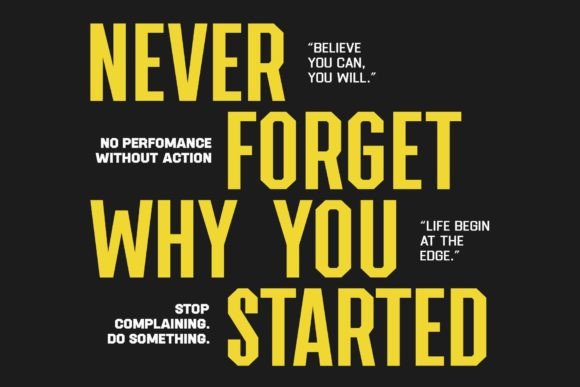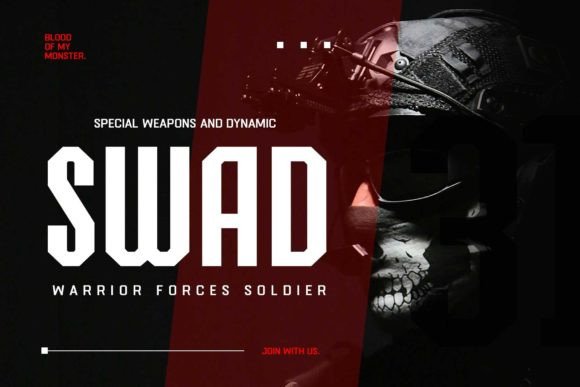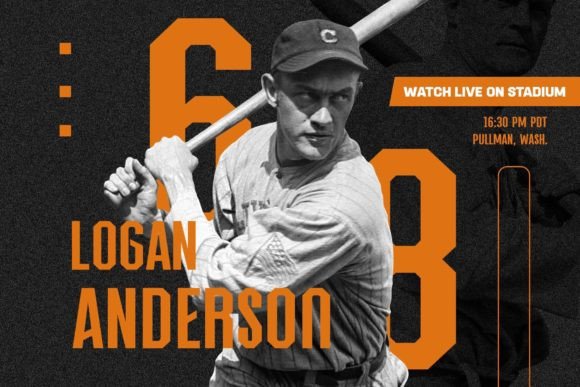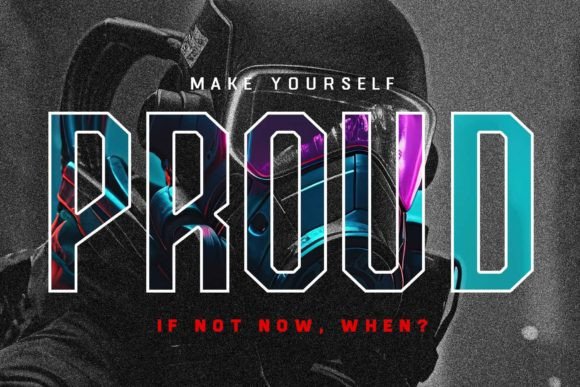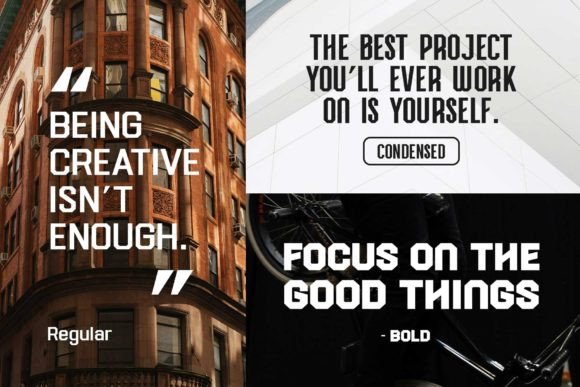
Introducing Brionsen Font: A Bold and Versatile Typeface for Modern Designs
In the world of typography, fonts play a crucial role in conveying the tone and personality of a design. For designers and crafters looking for a strong and energetic font to elevate their projects, Brionsen Font is an excellent choice. This robust block font comes in three distinct styles: regular, bold, and condensed, making it an incredibly versatile typeface for various design applications.
Design Characteristics of Brionsen Font
Brionsen Font is carefully crafted with sharp edges that exude strength and courage, making it perfect for designs that require a bold statement. The font’s design characteristics include:
- Sharp Edges: The font’s sharp edges give it a rugged and powerful look, ideal for sports themes, military designs, and futuristic projects.
- Three Styles: Brionsen Font comes in three styles: regular, bold, and condensed. This range of styles allows designers to use the font for various purposes, from short body text to headlines.
- Stylistic Alternatives: The font is equipped with stylistic alternatives, providing designers with more creative options to experiment with.
- Multilingual Support: Brionsen Font supports multiple languages, making it a great choice for global designs.
Using Brionsen Font Effectively
One of the significant advantages of Brionsen Font is its versatility. Designers can combine the three styles effectively to create visually appealing and well-structured designs. Here are some tips on using Brionsen Font:
- Regular Style: Use the regular style for short body text, such as descriptions or captions. Its clean and straightforward design makes it easy to read.
- Bold Style: The bold style is perfect for sub-headlines or taglines, adding a touch of emphasis and energy to the design.
- Condensed Style: The condensed style is ideal for headlines, allowing designers to create bold and attention-grabbing titles.
Ideal Design Applications for Brionsen Font
Brionsen Font is suitable for a wide range of design applications, including:
- Sports Themes: The font’s bold and energetic design makes it perfect for sports-themed designs, such as logos, jerseys, and promotional materials.
- Military Designs: The font’s strong and rugged design elements make it an excellent choice for military-inspired designs.
- Futuristic Projects: Brionsen Font’s sharp edges and bold design make it suitable for futuristic projects, such as sci-fi posters, logos, and website headers.
- Energetic Designs: Any design that requires an energetic touch, such as music posters, event flyers, or advertising materials, can benefit from Brionsen Font.
In conclusion, Brionsen Font is a powerful and versatile typeface that can elevate any design project. Its range of styles, sharp edges, and stylistic alternatives make it an excellent choice for designers and crafters looking for a bold and energetic font. With its suitability for various design applications, including sports themes, military designs, futuristic projects, and energetic designs, Brionsen Font is an excellent addition to any design toolkit.